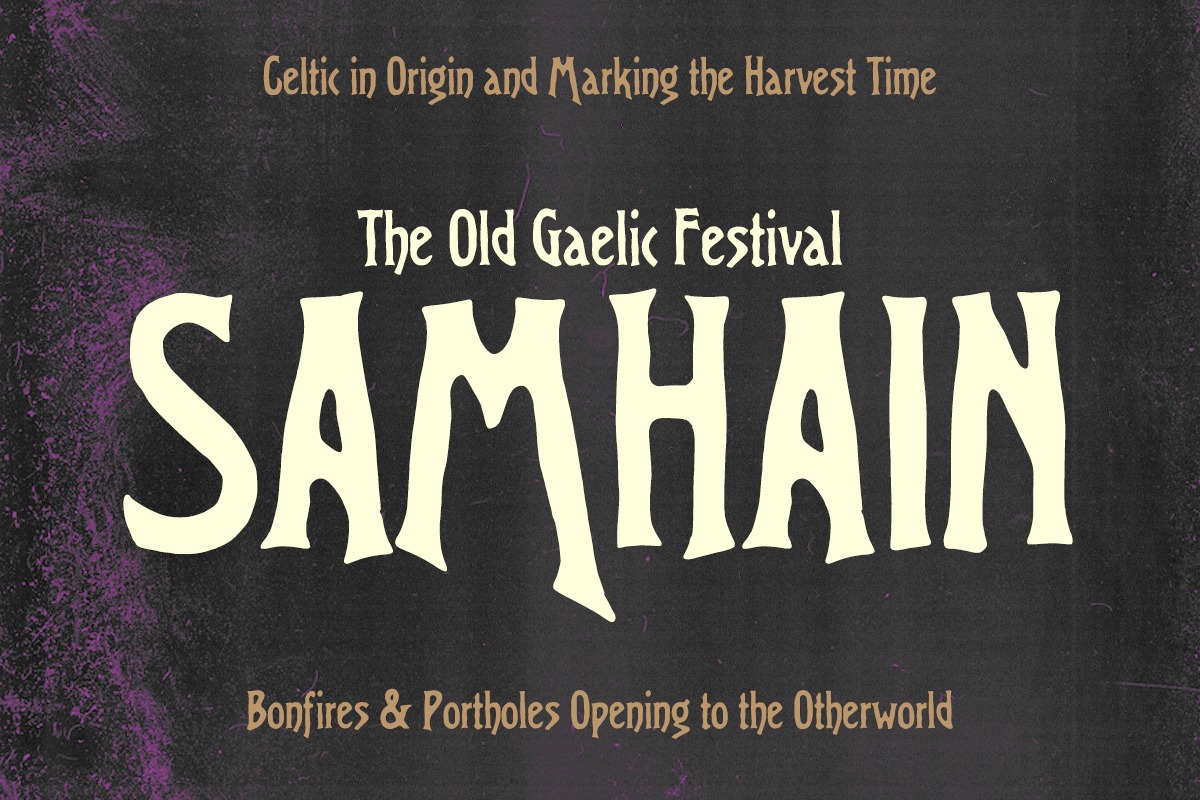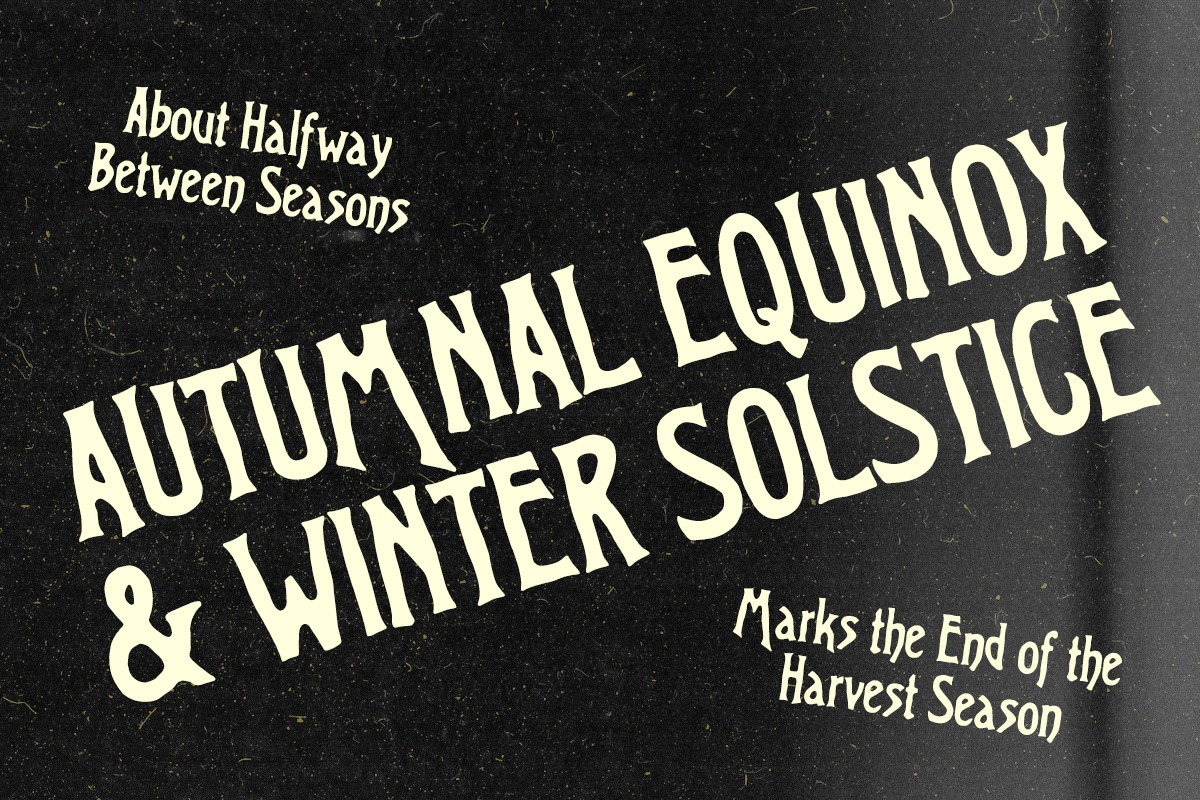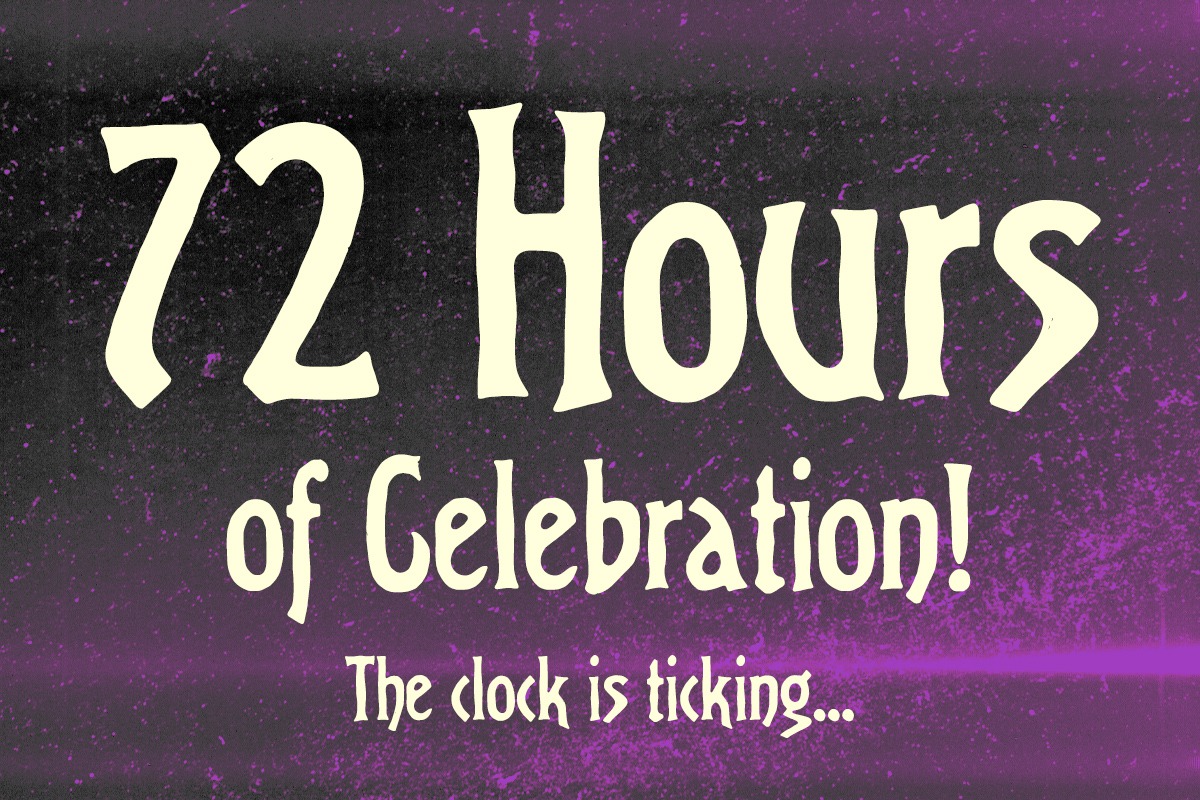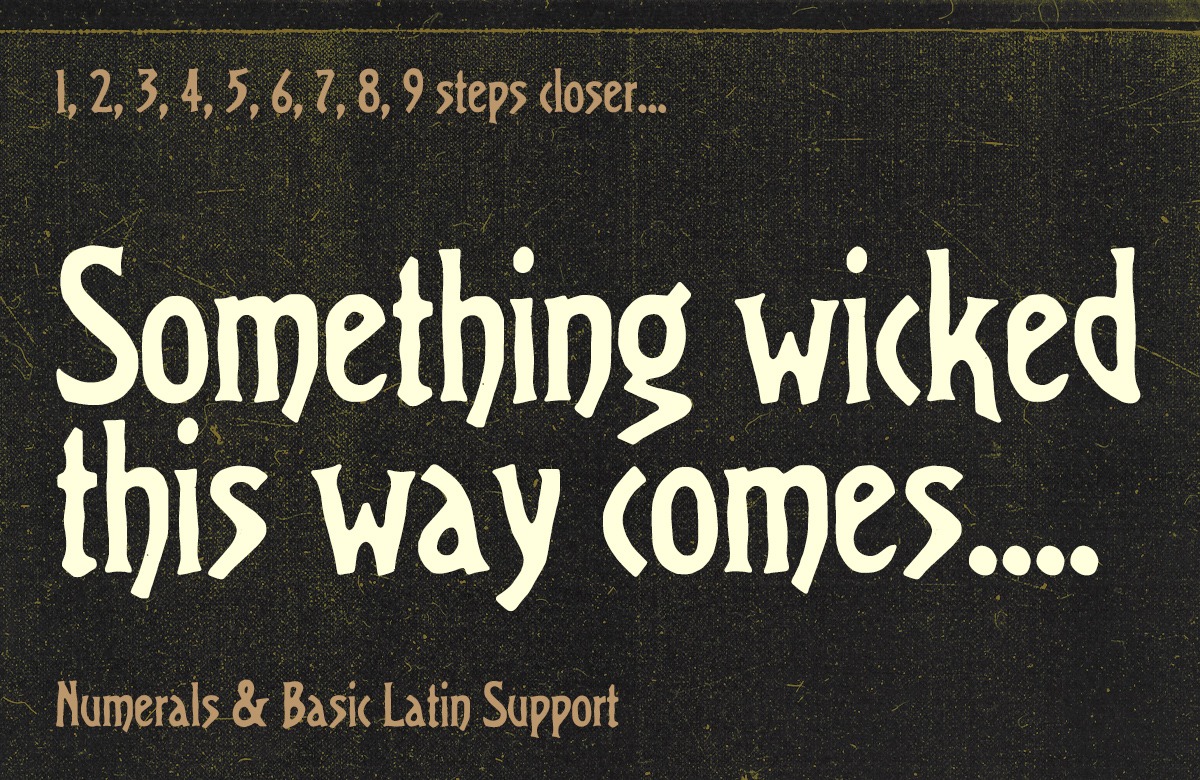
Hallows Eve Typeface
A Spooky, Frightful Typeface
Got something spooky to say? Say it with Hallows Eve. When you want your words to crawl across the page and for voices to shudder in fear as they read your text… use Hallows Eve.
Hallows Eve is a frightful display face with tons of imperfections, perfect for October, Halloween, Samhain, or whatever spooky time of year you celebrate. It comes with Basic Latin and can support some languages, but not all of them. (That’s the actual scary part).
Something Wicked This Way Comes